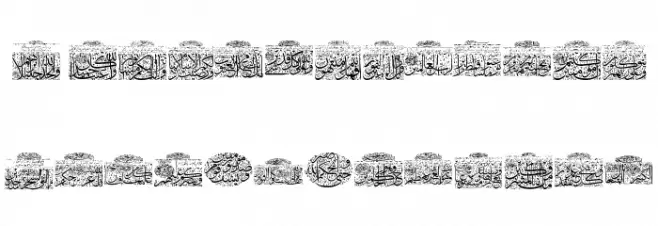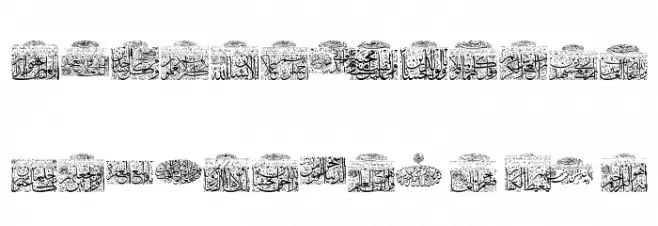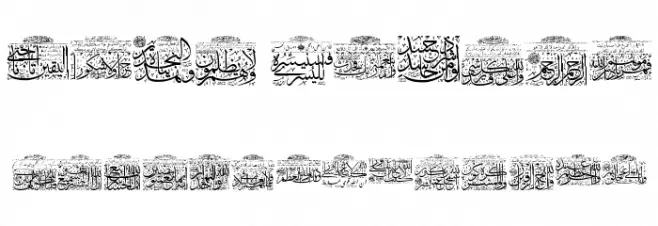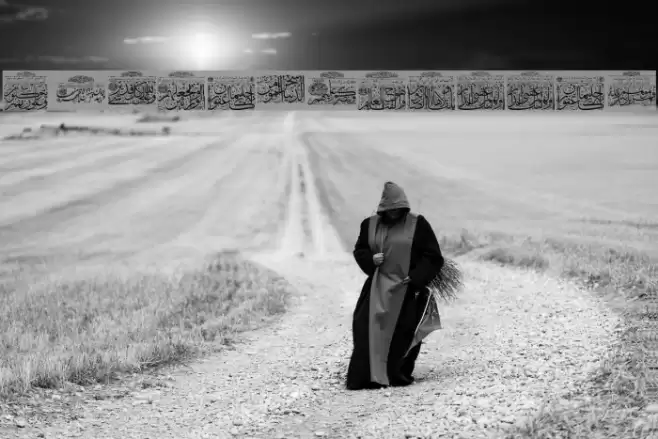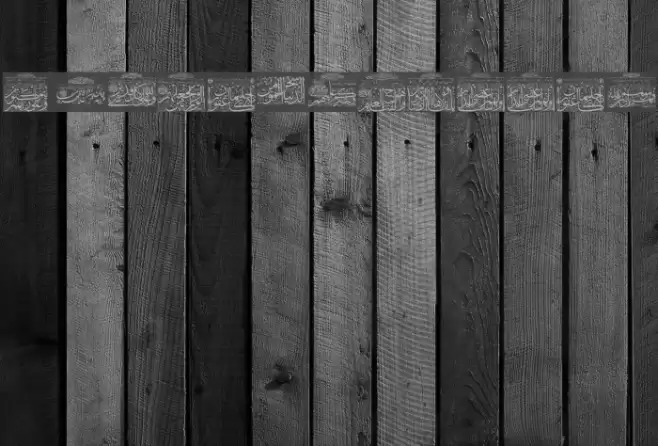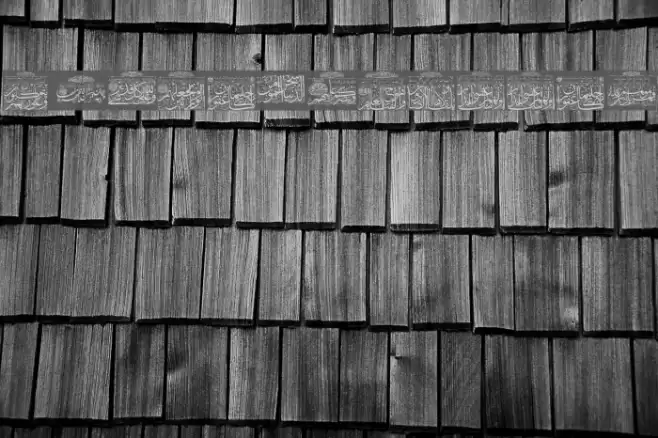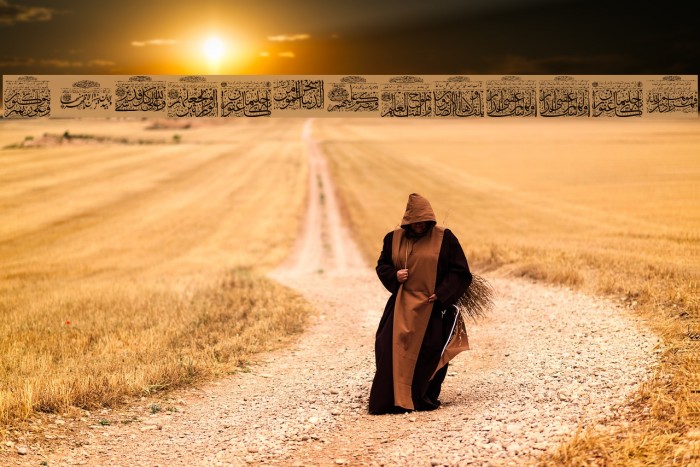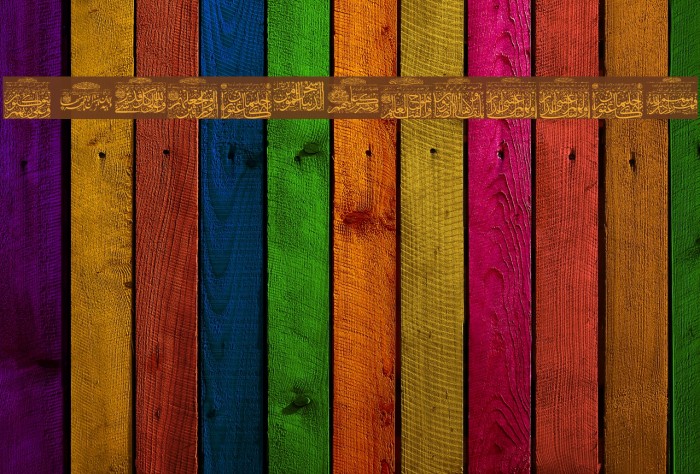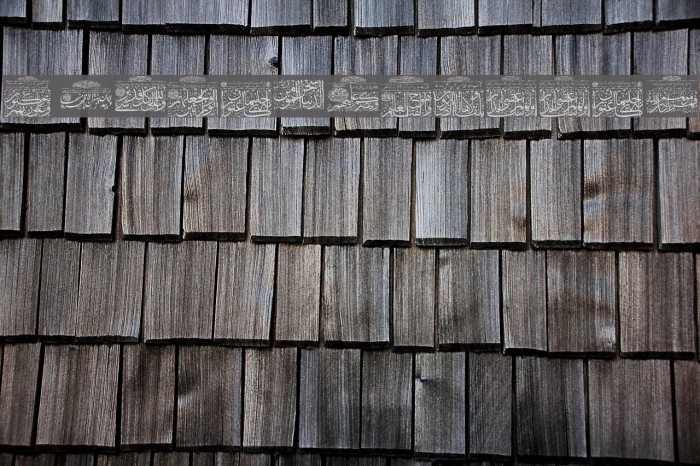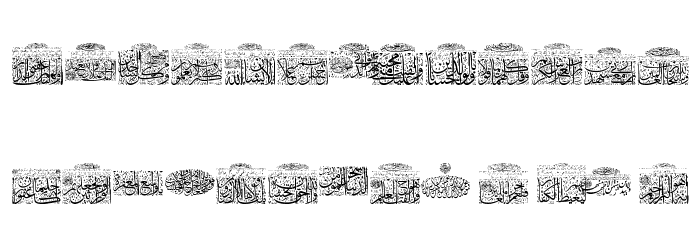
My Font Quraan 9
Highly ornate Arabic script with intricate decorative elements, featuring bold strokes and elaborate flourishes typical of traditional religious calligraphy. The letterforms are tightly spaced and enclosed within rectangular frames, creating a dense and visually rich texture.
Ornate Arabic calligraphic script with decorative framing.
- Proposed Projects: Religious texts, ceremonial documents, historical reproductions, artistic posters.
- Width: Condensed
- Character Spacing: Tight
- Contrast: High
- Overall Style: Traditional, Decorative, Religious
- Use Case: Religious manuscripts, ceremonial headings, artistic displays